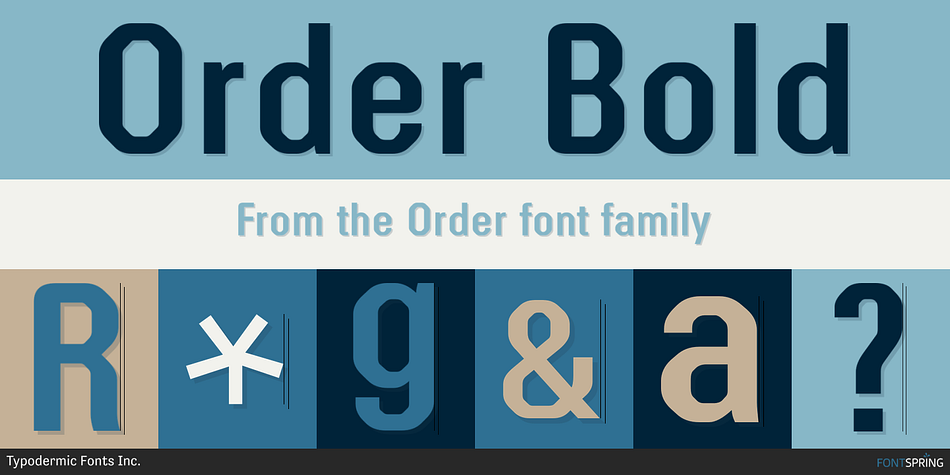
Order Bold
Order is a sans serif font family. This typeface has six styles and was published by Typodermic Fonts Inc.
In the world of typography, finding the perfect balance between form and function is the ultimate goal. Enter Order, a condensed, technical plotter-style typeface with Univers proportions that effortlessly marries style and substance.
With its contemporary technological aesthetic and octagonal design, Order can blend in seamlessly with the reader’s visual vernacular. But don’t be fooled by its unassuming appearance—this typeface is a powerhouse of precision and consistency.
Order’s angular shapes and uniform strokes exude a sense of cold reason that is ideal for technical documents and data-driven content. Its condensed form allows for maximum legibility even at small sizes, making it perfect for charts, graphs, and diagrams.
Available in three different weights and italics, Order offers versatility and flexibility that can adapt to any design situation. Whether you’re looking to add a touch of modern sophistication to a branding project or need a reliable font for technical reports, Order is the perfect choice.
In a world that demands both style and substance, Order is the typeface that delivers. With its sleek, high-tech look and unparalleled precision, Order will elevate your message and bring a touch of uniformity to your designs.